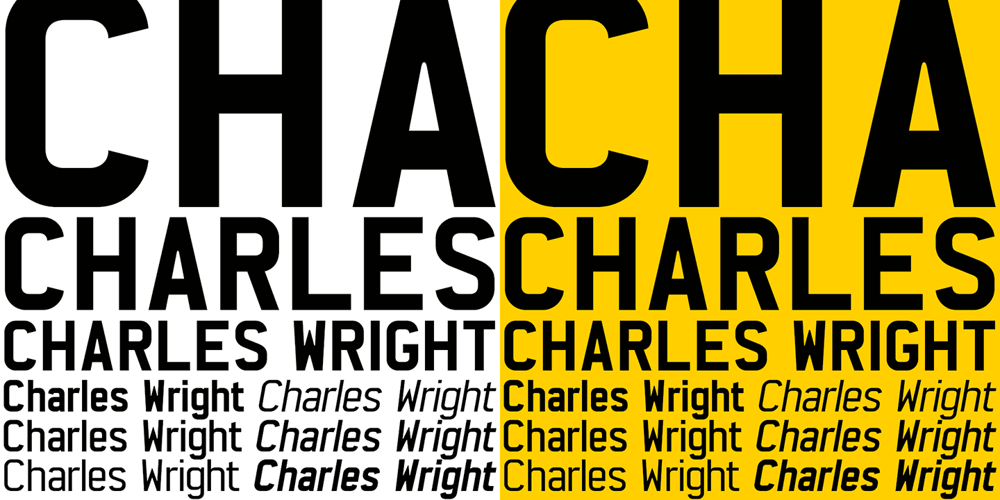
Charles Wright Font Family was designed by Keith Bates and published by K-Type. Charles Wright contains 9 styles and family package options. Charles Wright is a full typeface in the style used for British vehicle license plates. The standard Bold weight is based on the condensed bold ‘2001’ style with an uppercase which conforms to UK registration plate specifications for character heights of 79mm and widths of 50mm. The 9 font family also includes previously unavailable Medium and Regular weights, Obliques , and a newly designed lowercase. For platemakers, the wider ‘1935’ and lighter ‘Motorcycle’ fonts are also included.